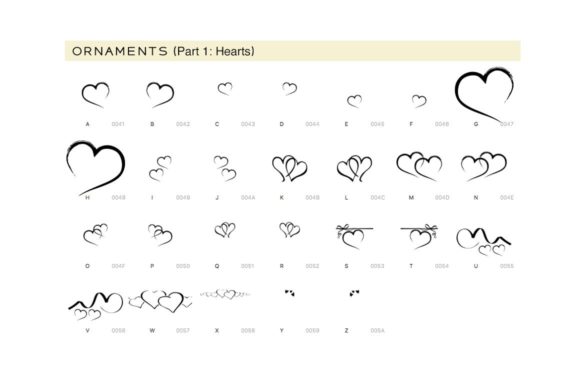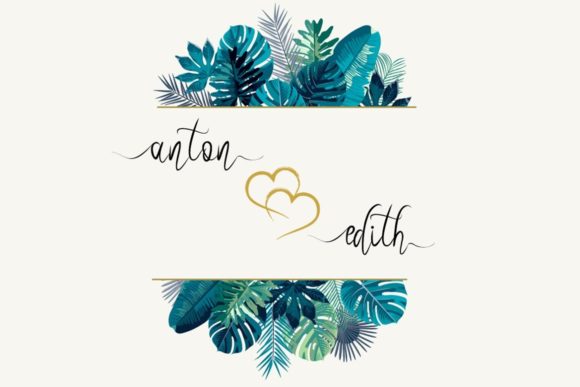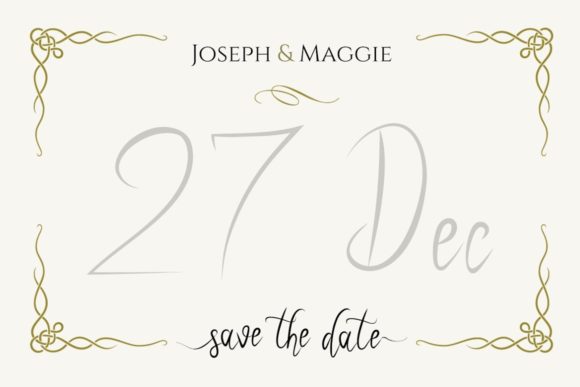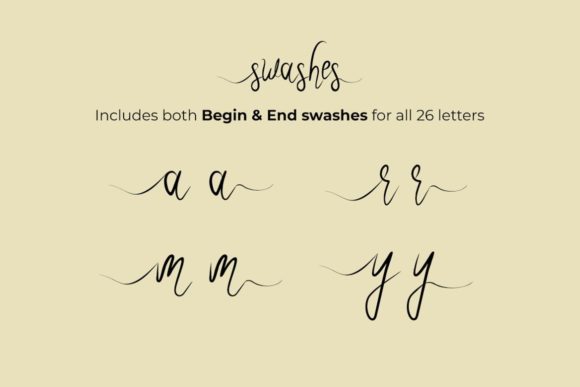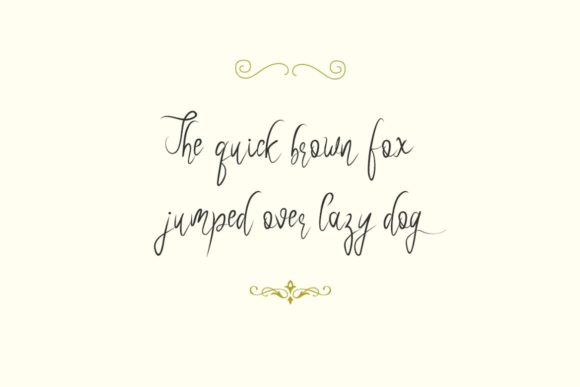
Introduction to Roselind Font
Have you ever stared at a blank canvas, feeling the pressure to create something truly special? Maybe it’s a wedding invitation, a logo for your new business, or a poster for a charity event. Whatever your creative project may be, you’re on the hunt for the perfect font to bring it to life. That’s where Roselind Font comes in – a stunning, high-quality handwritten font that’s about to become your new best friend.
As a valuable design resource, Roselind Font offers an incredible level of versatility, making it perfect for a wide range of creative projects. With its beautiful swashes and ornaments, you can add a touch of elegance and sophistication to even the simplest of designs. Plus, with a transparent background, you can easily layer it with other elements to create something truly unique. And the best part? You can download it for free, making it an absolute must-have in your design arsenal.
Key Features of Roselind Font
- High-quality, elegant design perfect for creative projects.
- Unique, handwritten style that adds a personal touch to any creative project.
- Perfect for use in digital and print design, including logos, typography, and other visual elements.
Honest Review: Roselind Font
I recently stumbled upon the Roselind Font, and I’m excited to share my honest review with you. As a designer, I’m always on the lookout for high-quality design resources to elevate my creative projects.
One of the standout features of the Roselind Font is its sleek and modern aesthetic. The font’s clean lines and elegant curves make it perfect for a wide range of applications, from digital interfaces to print materials. I was impressed by the font’s versatility and how easily it adapts to different contexts.
Here are some of the things that work well for me:
- ✨ High-quality design that looks professional and modern
- ⚠️ Limited character set, which may not be suitable for extended text blocks
- ⚠️ May not be as readable in smaller font sizes
Overall, I’m impressed by the Roselind Font and would recommend it to designers looking for a high-quality, modern font for their creative projects. While it may have some limitations, its benefits far outweigh its drawbacks.
Roselind Font: A High-Quality Design Resource
Common Use Cases for Roselind Font
Roselind Font is a versatile design resource that can be used in a variety of creative projects, including logos, graphics, presentations, and documents. It’s especially useful for designers who want to add a touch of elegance and sophistication to their designs.